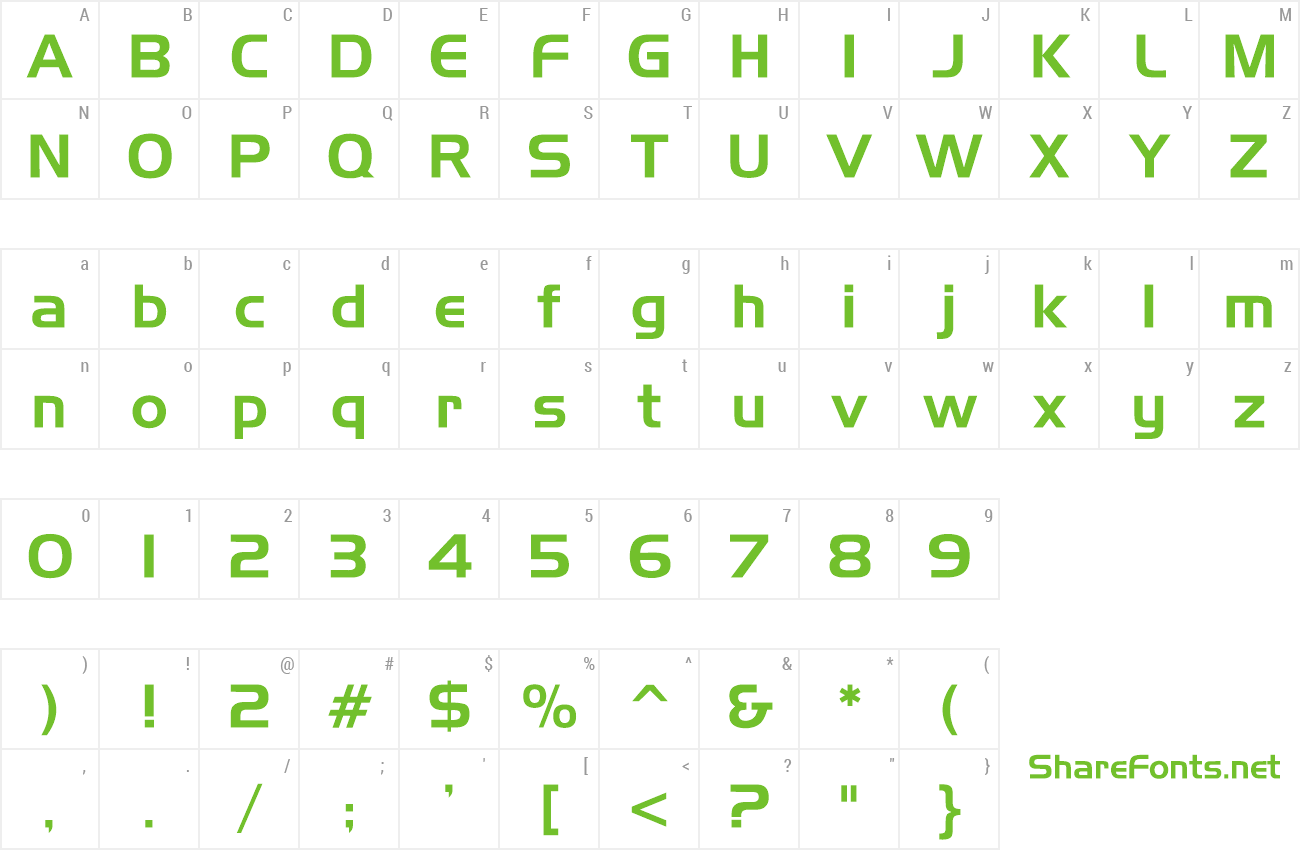
Handel gothic font free download. However while particularly astonishingly stunning. Morganite is an amazingly intricate free sans serif font. Handel gothic font is the best elegant font for formal invites and gigantic headings in editorial layouts. This font has been downloaded 200000 times.
Handel gothic 26 reviews categories. Download free handel gothic light font view its character map and generate text based images or logos with handel gothic light font online. Handel gothicttf file size. Design of handel gothic font.